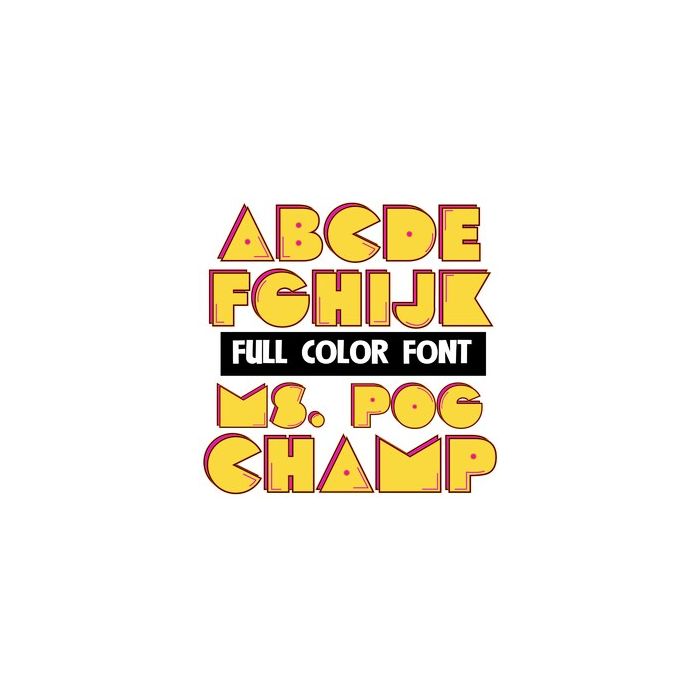
This full-color font features 80's style video game lettering. This font works best for titles, displays, posters and more. Please note color fonts will show as black in non compatible programs. This font type is compatible with Silhouette Studio